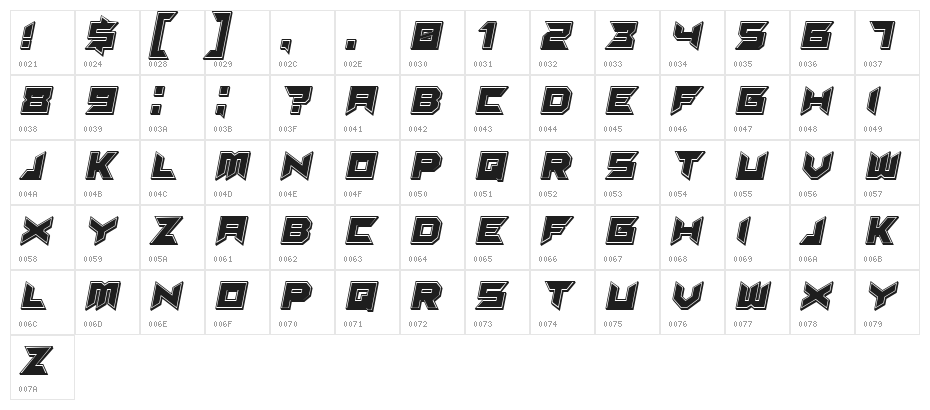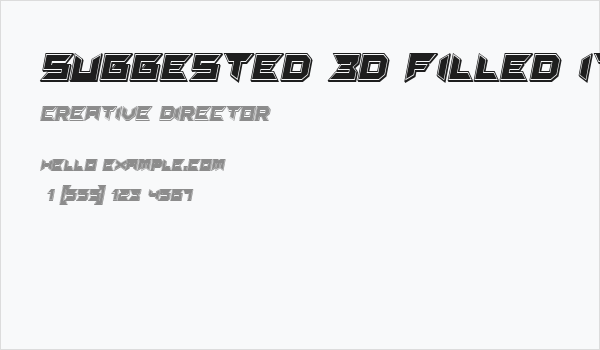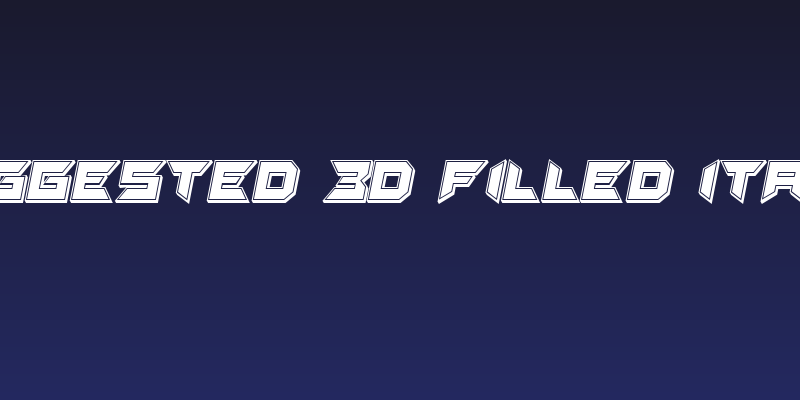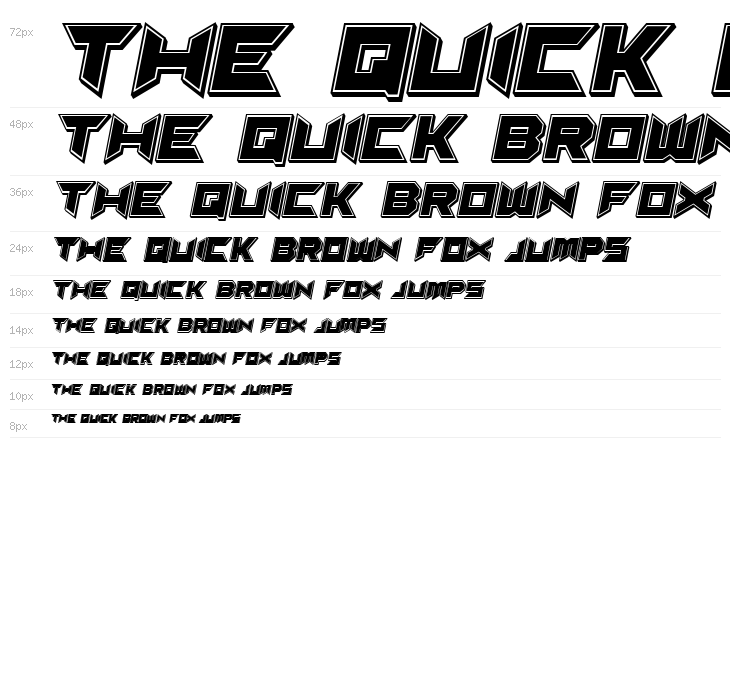
Suggested 3D Filled Italic Font
Suggested 3D Filled Italic Description
This font features a bold, three-dimensional design with a filled appearance that gives it a striking and dynamic look. The italicized style adds a sense of motion and energy, making it ideal for attention-grabbing headlines or titles. Each character is outlined with a contrasting border, enhancing the 3D effect and providing a sense of depth. The geometric shapes and sharp angles contribute to a modern and futuristic aesthetic, while the consistent weight across all characters ensures readability. The font's unique style makes it suitable for creative projects that require a bold statement.
| Proposed Projects | Ideal for posters, video game titles, branding, and any project needing a futuristic and bold aesthetic. |